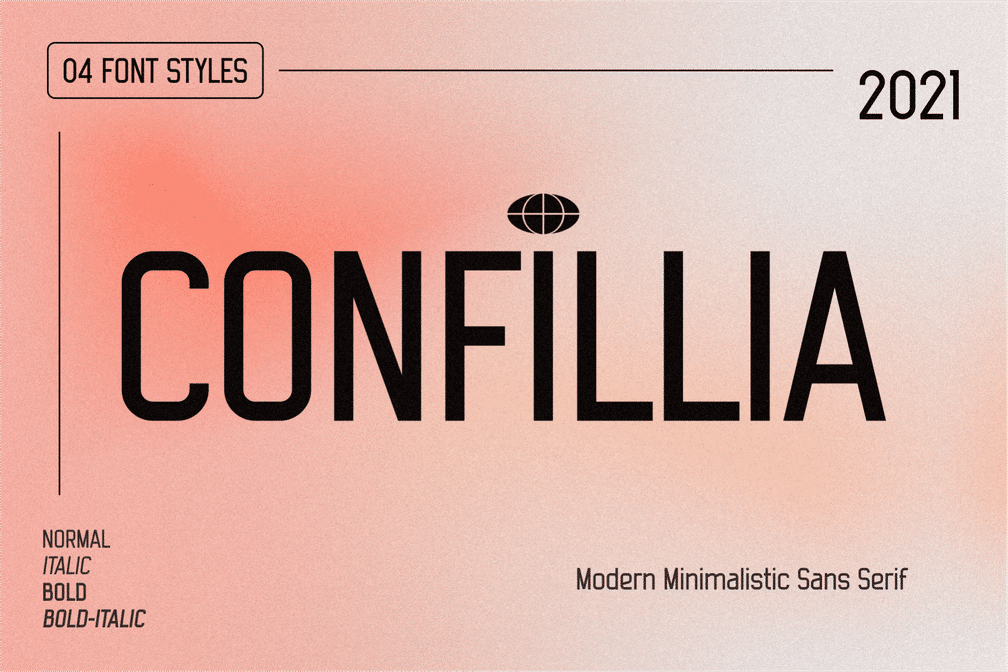
- Confillia Sans Serif
Inspired by modern things around the growing industry, to show the side of the progress of the times that continue to change rapidly.
Suitable for branding, movie poster designs, product posters, social media branding (instgram, youtube, facebook, etc.) , podcast covers, packaging designs, label designs, logos, website headers and any designs that require a modern touch.